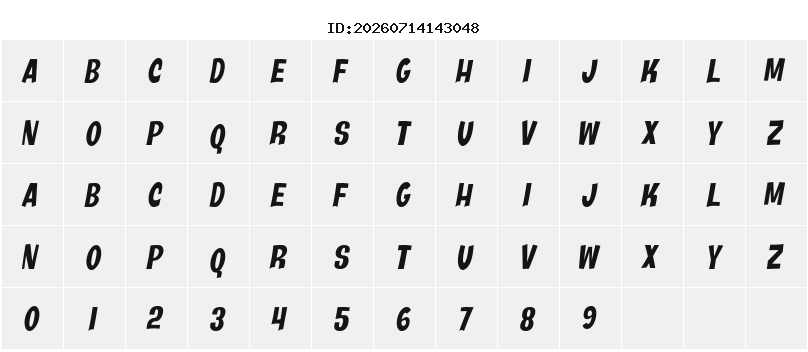
• Font Name: Java Kick BTN Cond
• Font Style: Oblique
• Font ID: Java Kick BTN Cond Oblique
• Full Font Name: Java Kick BTN Cond Oblique
• PostScript Name: JavaKickBTNCondOblique
Java Kick BTN Cond.ttf is a modern, elegant sans-serif font designed for ultimate readability and visual harmony. Perfect for branding, headlines, web design, and print materials.